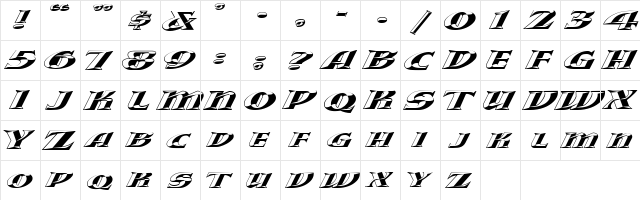
3 RaceWay DNA Regular Font Preview
3 RaceWay DNA Regular
3 RaceWay DNA Regular Font Details
Design Context for 3 RaceWay DNA Typeface
3 RaceWay DNA is a composed and adaptable typeface that performs quietly and consistently across a wide range of design contexts.